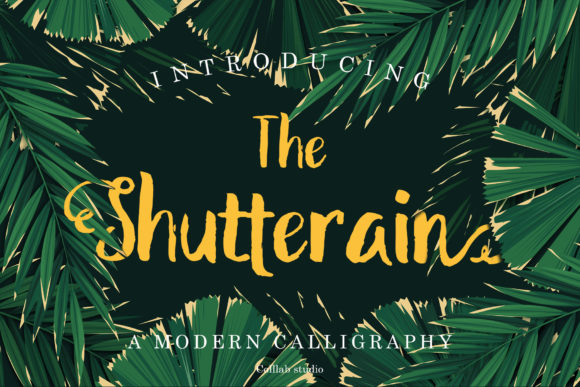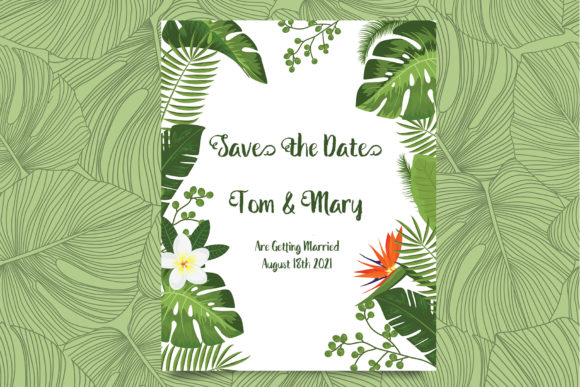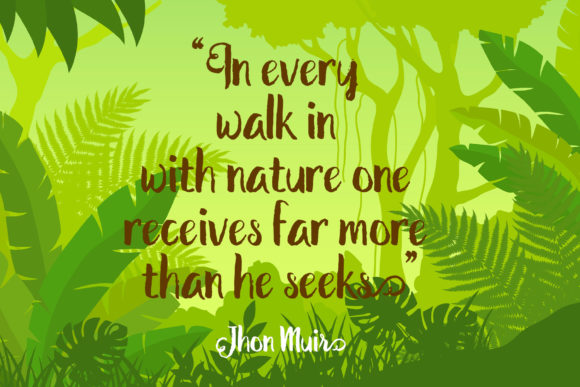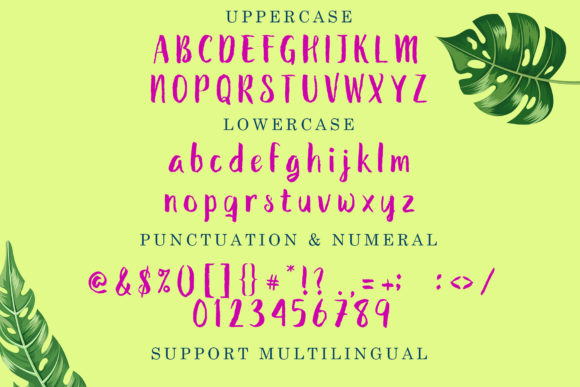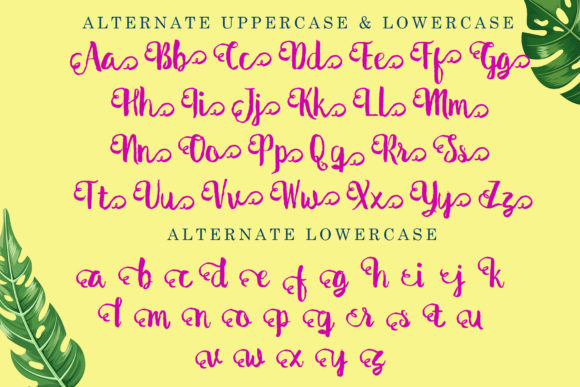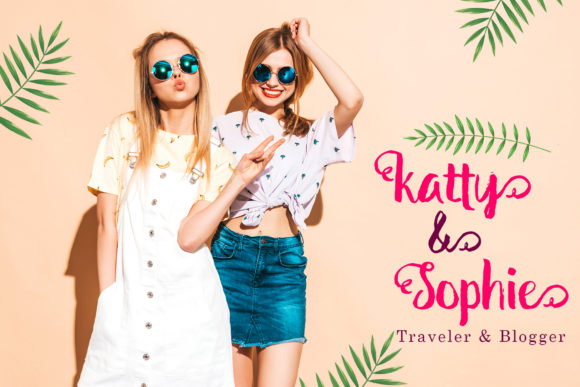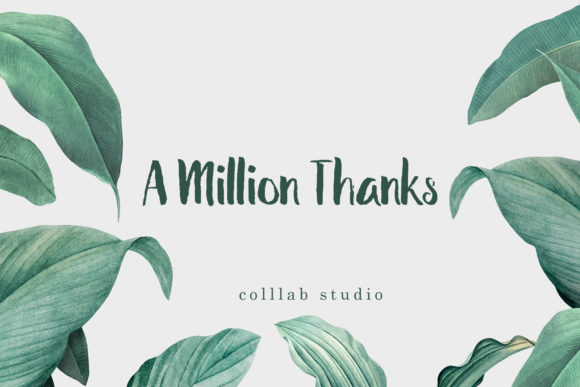
The Shutterain Font
About The Shutterain Font
The Shutterain is a modern handwritten font, carefully handcrafted to become a true favorite. This font will look outstanding in any context, whether it’s being used on busy backgrounds or as a standalone headline!